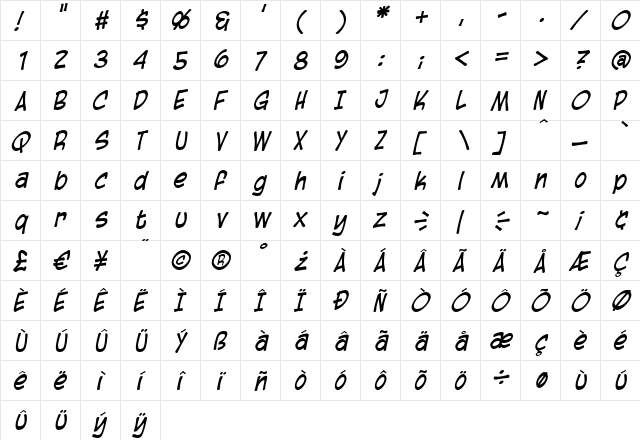
Blambot Casual Italic
Design Context for Blambot Casual Typeface
Blambot Casual is a composed and adaptable typeface that performs quietly and consistently across a wide range of design contexts. The slanted form adds forward momentum and visual energy.
Pro Tip: Try Blambot Casual for annotation and caption copy alongside an upright companion — the contrast in angle creates a dynamic but ordered typographic system.